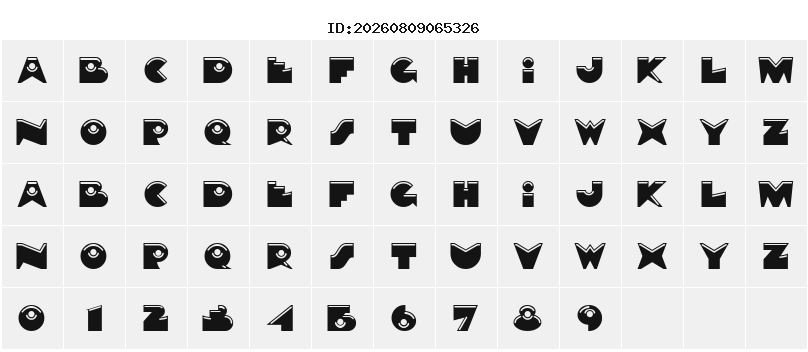
Petre Devos NF Preview
• Font Name: Petre Devos NF
• Full Font Name: Petre Devos NF
• PostScript Name: PetreDevosNF
• Designer: Nick Curtis
• Manufacturer: Nick Curtis
About Petre Devos NF.ttf
Petre Devos NF.ttf is a modern, elegant sans-serif font designed for ultimate readability and visual harmony. Perfect for branding, headlines, web design, and print materials.